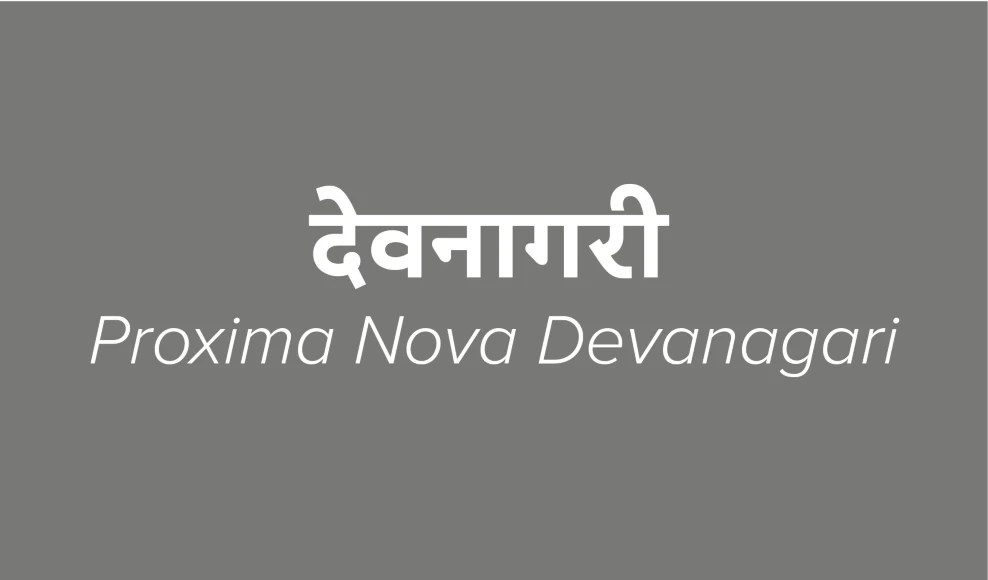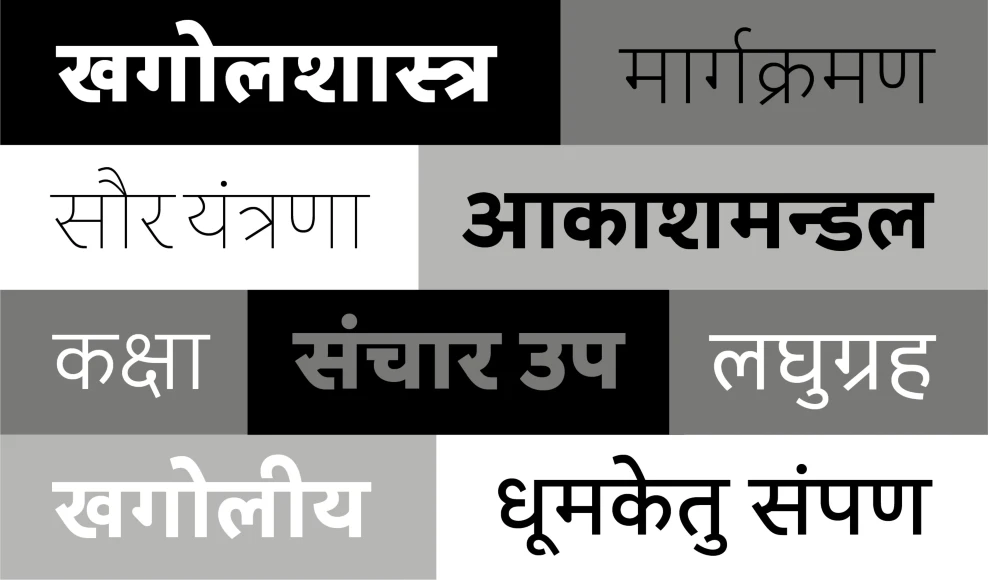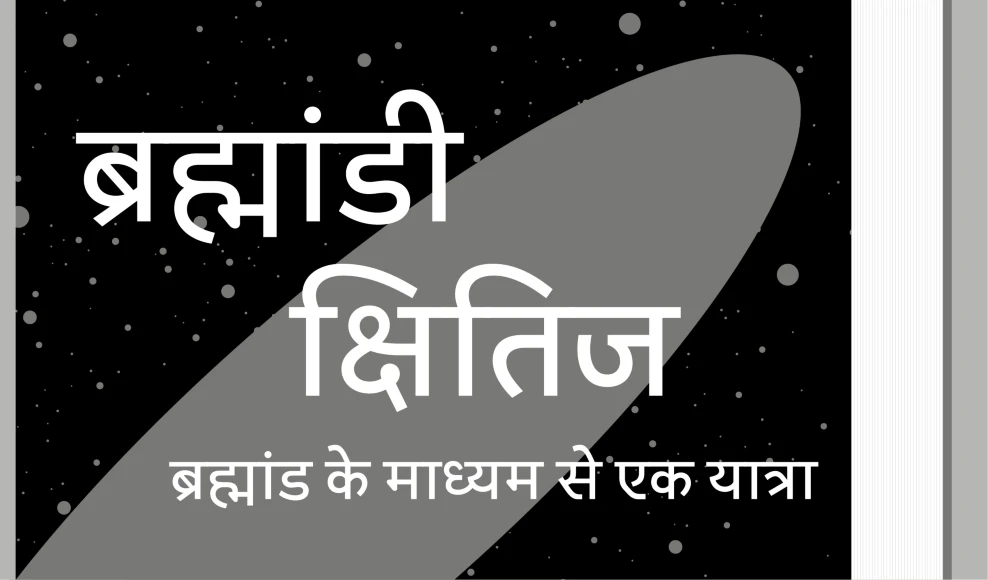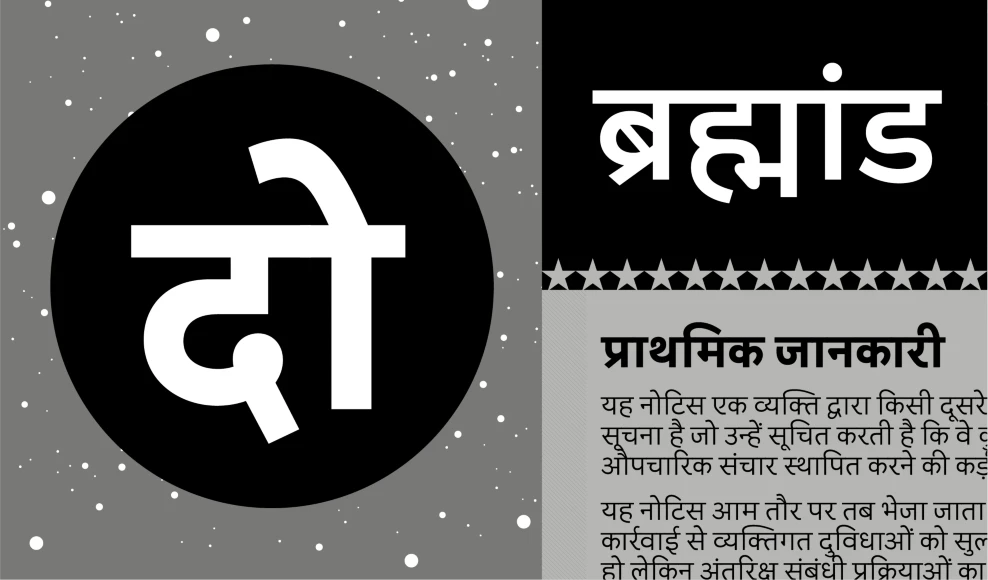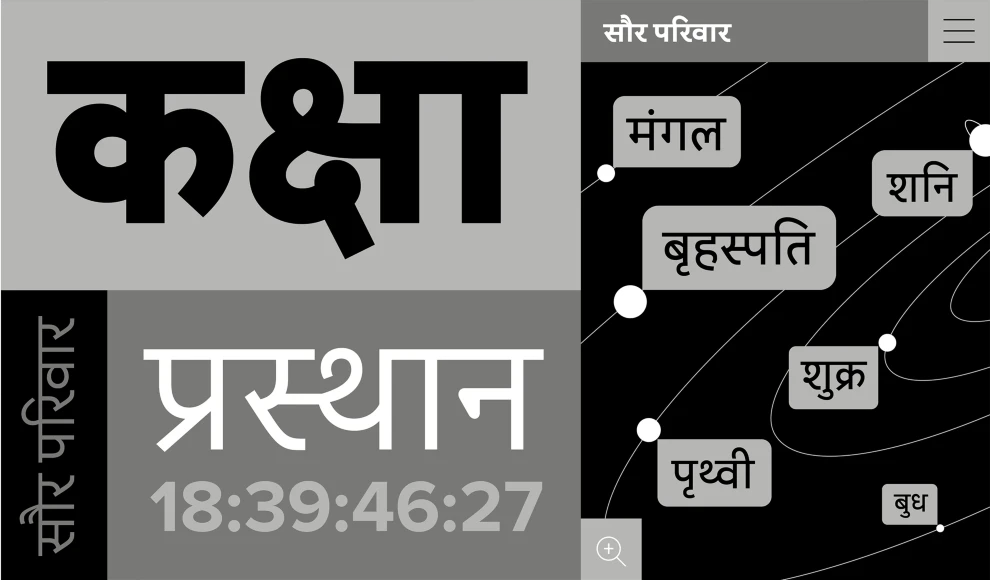
Proxima Nova Devanagari
Proxima Nova Devanagari (2024) was designed by Vaibhav Singh and Alessia Mazzarella of Typeland for Mark Simonson’s ever-popular Proxima Nova. The script was created with subtleties of flavor, making it distinctly its own without Latinization — as a partner for use with Proxima Nova. Featuring an extended Latin and Devanagari character set with Marathi and Nepali stylistic sets in eight weights — from Thin to Black — this growing family of typefaces is set to become even more popular worldwide.